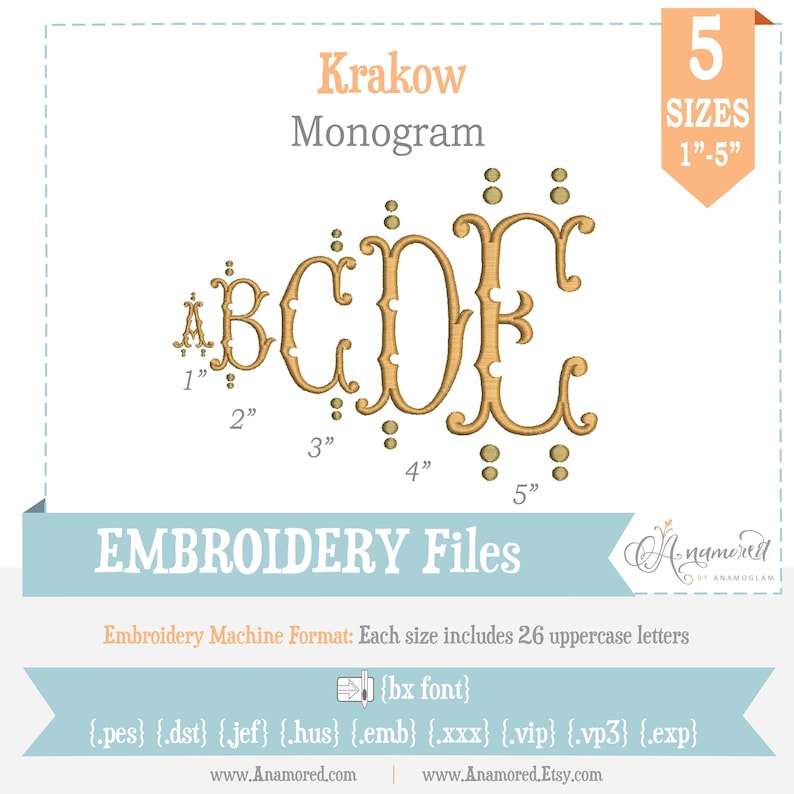
5 sizes (1-5 inch) Krakow Vintage Embroidery Monogram Font
5 sizes.
1″, 2″, 3″, 4″ and 5″ (height)
Includes 26 capital letters only. Satin stitch.
2 color
Krakow Vintage Embroidery Alphabet/Font for monograms.
5 sizes.
1″, 2″, 3″, 4″ and 5″ (height)
Includes 26 capital letters only. Satin stitch.
2 color